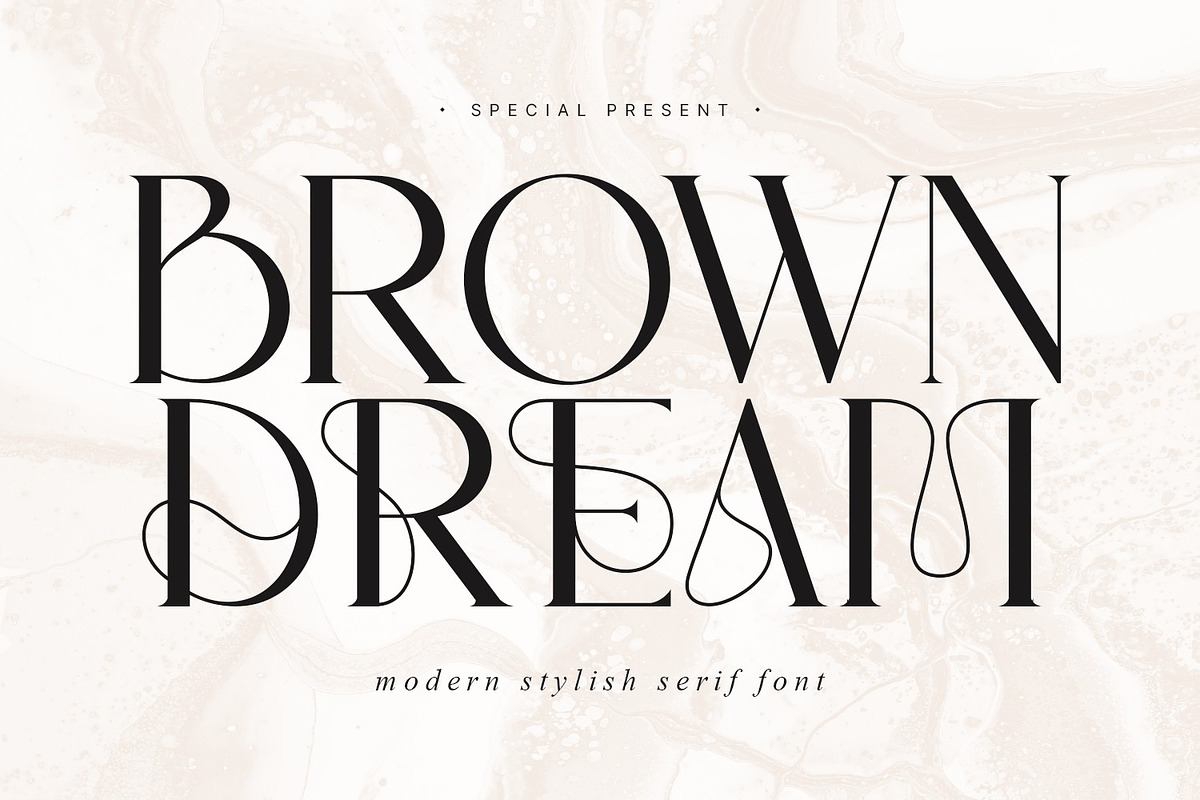
Brown Dream - Modern Stylish Serif Free Download
The Brown Dream - Modern Stylish Serif Font Free Download is a sleek and sophisticated serif typeface that blends modern design with classic elegance. Perfect for creating logos, editorial designs, fashion branding, and other stylish projects, this font adds a refined and contemporary touch to your work. Please note, for commercial use, a license must be purchased. You can download it for free for testing purposes.
With its clean lines and modern serifs, the Brown Dream - Modern Stylish Serif Font Free Download is ideal for projects that require both readability and a touch of luxury. Whether you're designing high-end branding, marketing materials, or digital content, this font elevates your designs with its stylish and professional look.